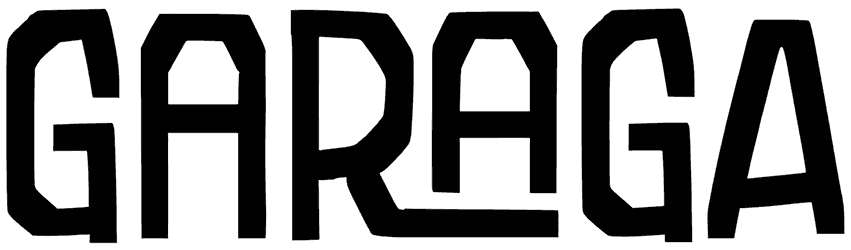
Garaga Font
If you’re designing a package for food like nuts, beans, or coffee, for an extra effect, use an interesting font like Garaga. This is a stone font, and its unique style can make a connection between the product and packaging.